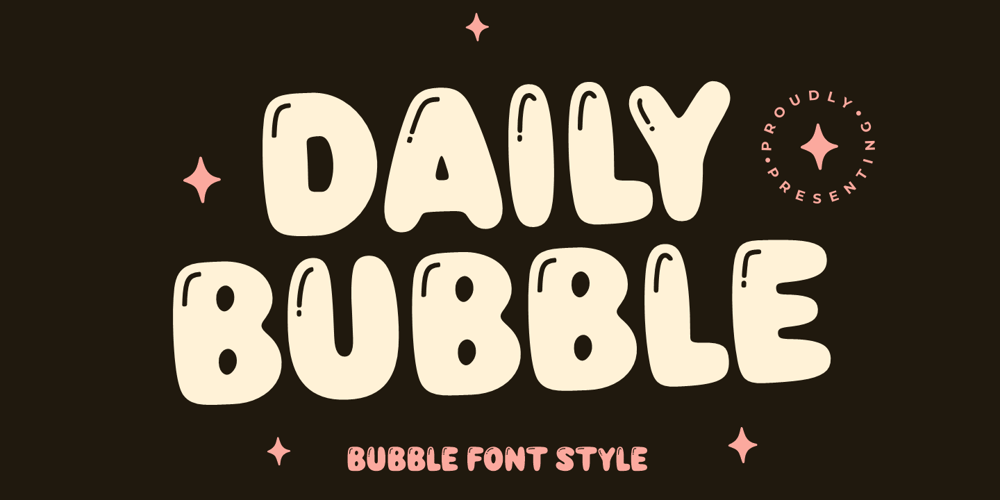
Daily Bubble Font Family was designed by Burhan Afif and published by HansCo. Daily Bubble contains 1 styles and family package options. Daily Bubble is a modern, bold, clean and decoration retro font style. Yes, you will get two versions of this font, a clean version and a decoration version. Equipped with all complete characters ranging from uppercase letters, lowercase letters, numbers, punctuation marks and multi-lingual support, this font is ready to be used in any project.Enjoy!